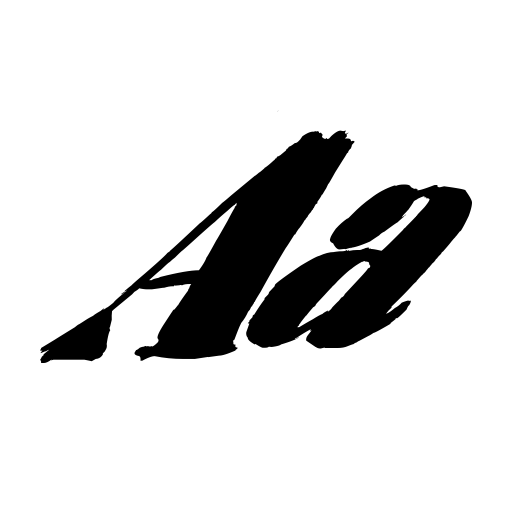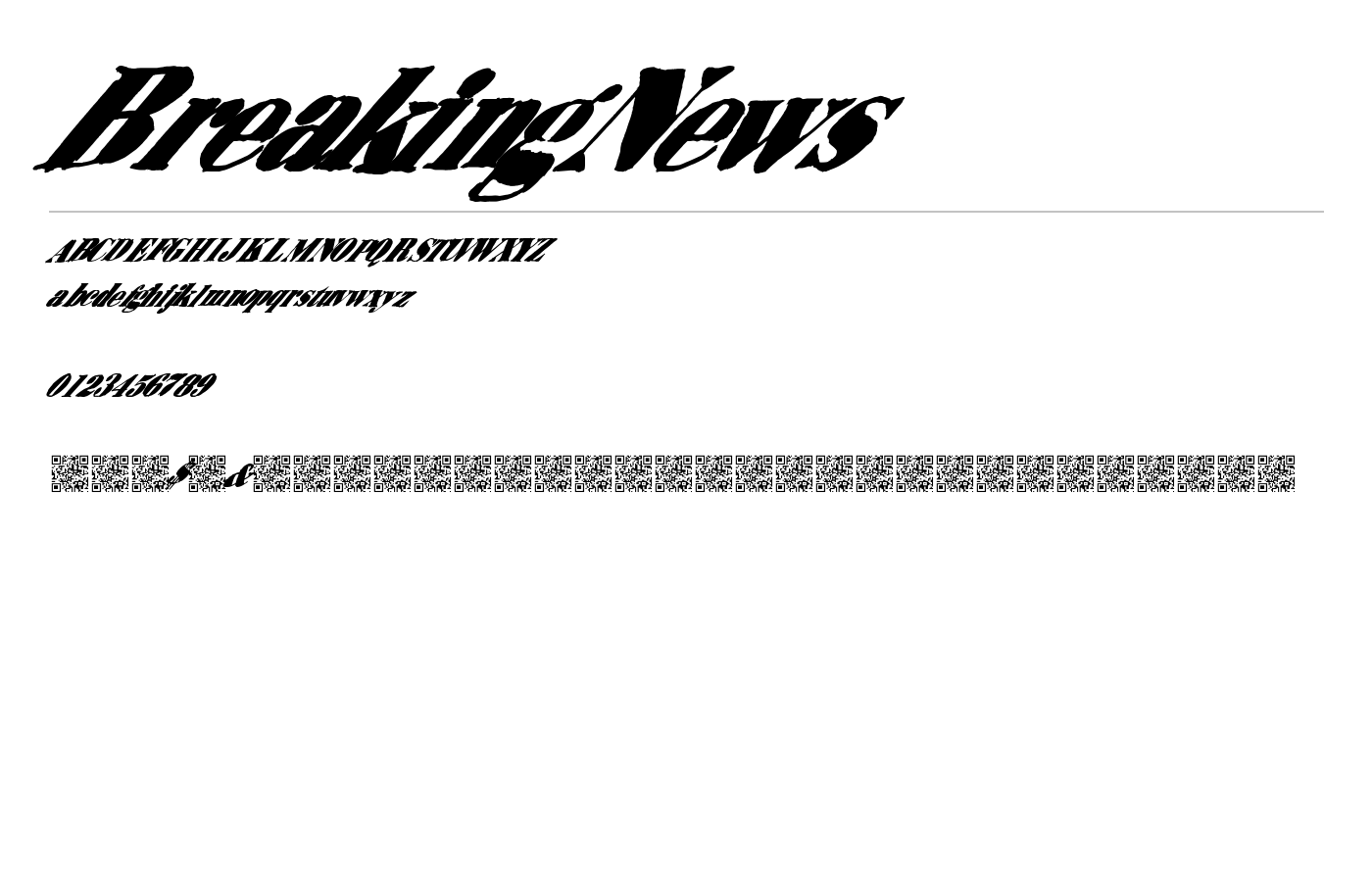
BreakingNews is a bold, condensed serif font with a strong italic slant that conveys urgency and dynamism. Its high contrast strokes and sharp, angled serifs give it a dramatic, vintage newspaper headline feel, making it perfect for eye-catching headlines, posters, and editorial design where impact and energy are key. This font works best in contexts that require immediate attention and a sense of movement, adding a bold, classic flair to any project.
BreakingNews Font